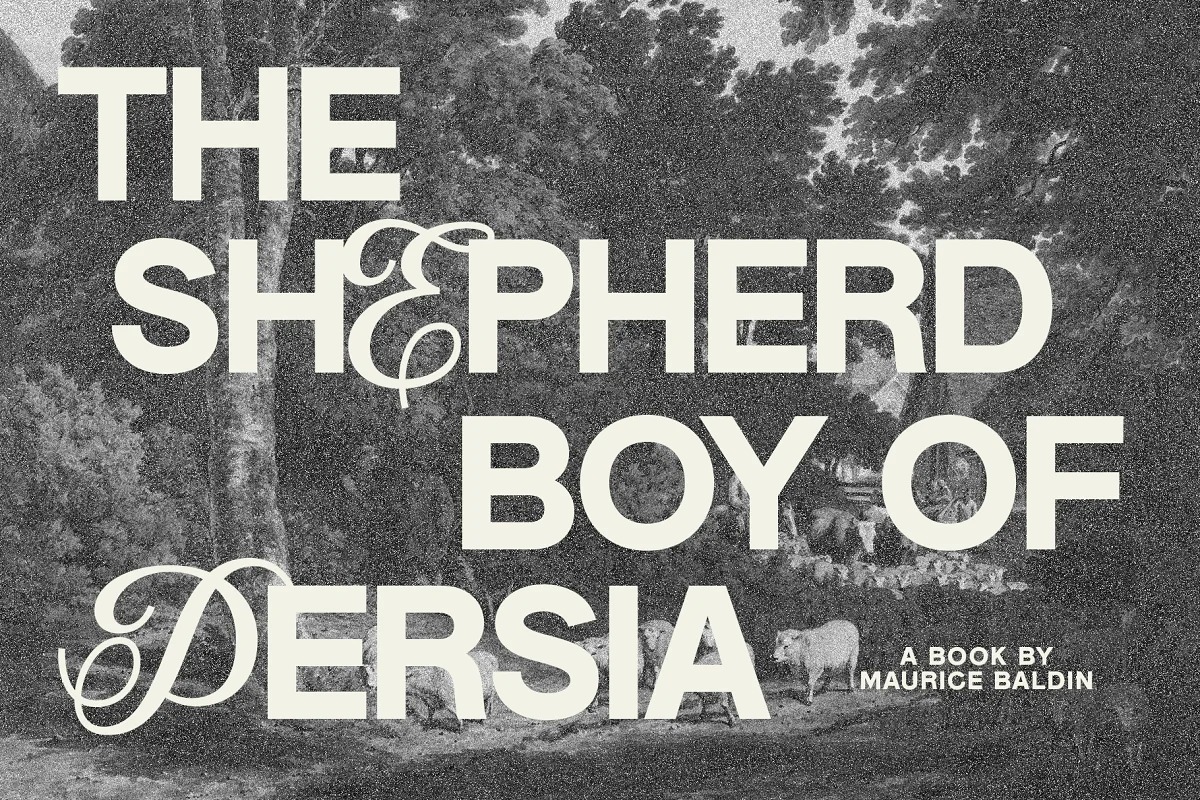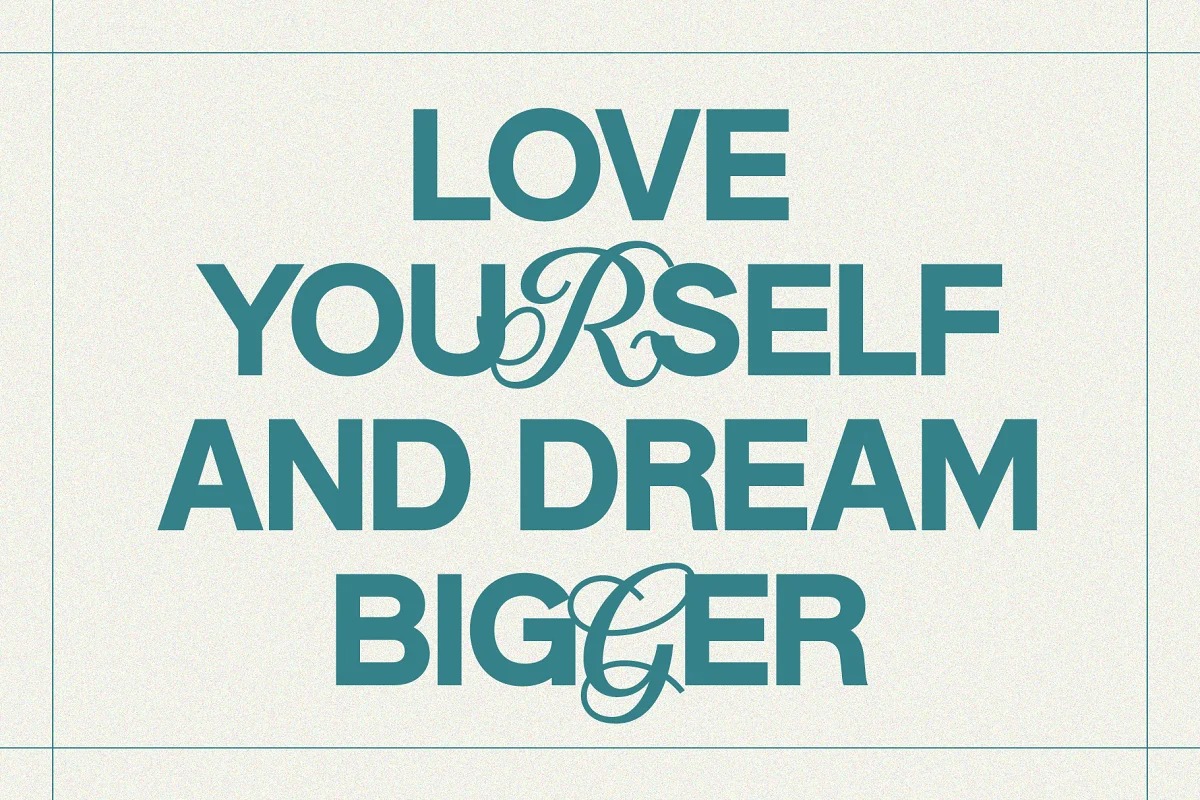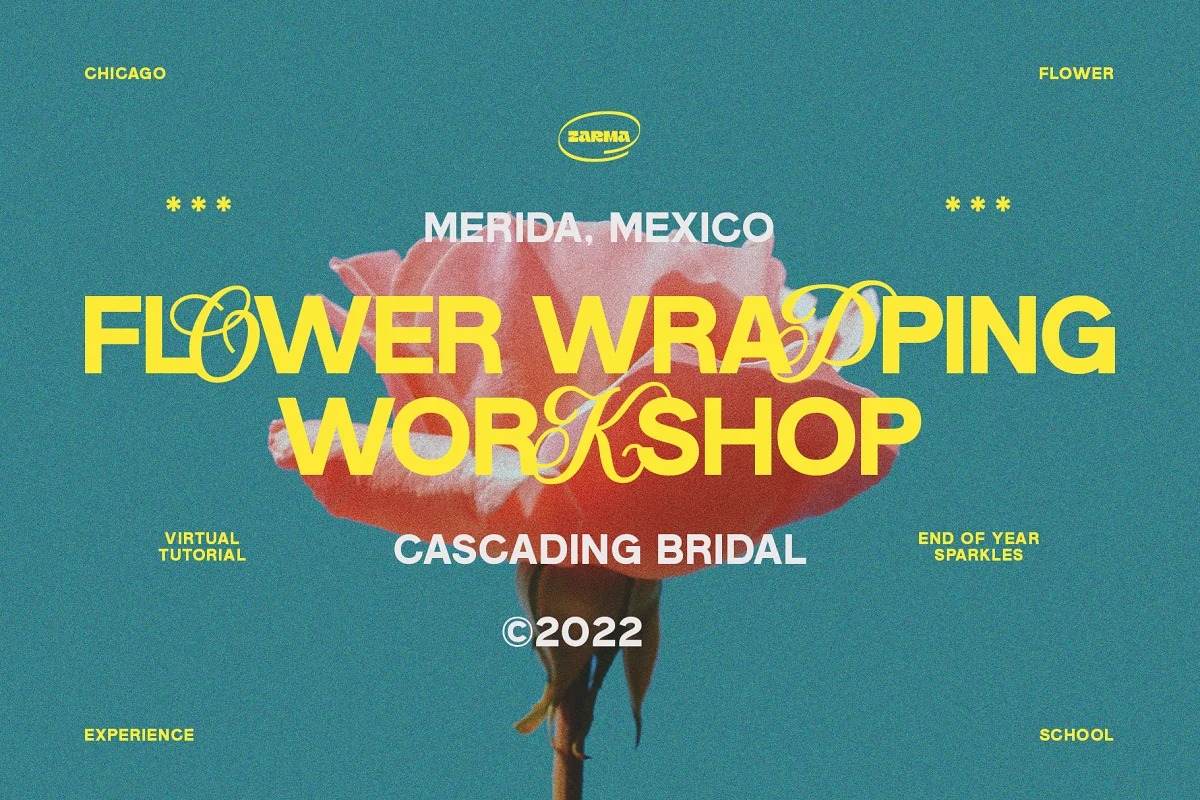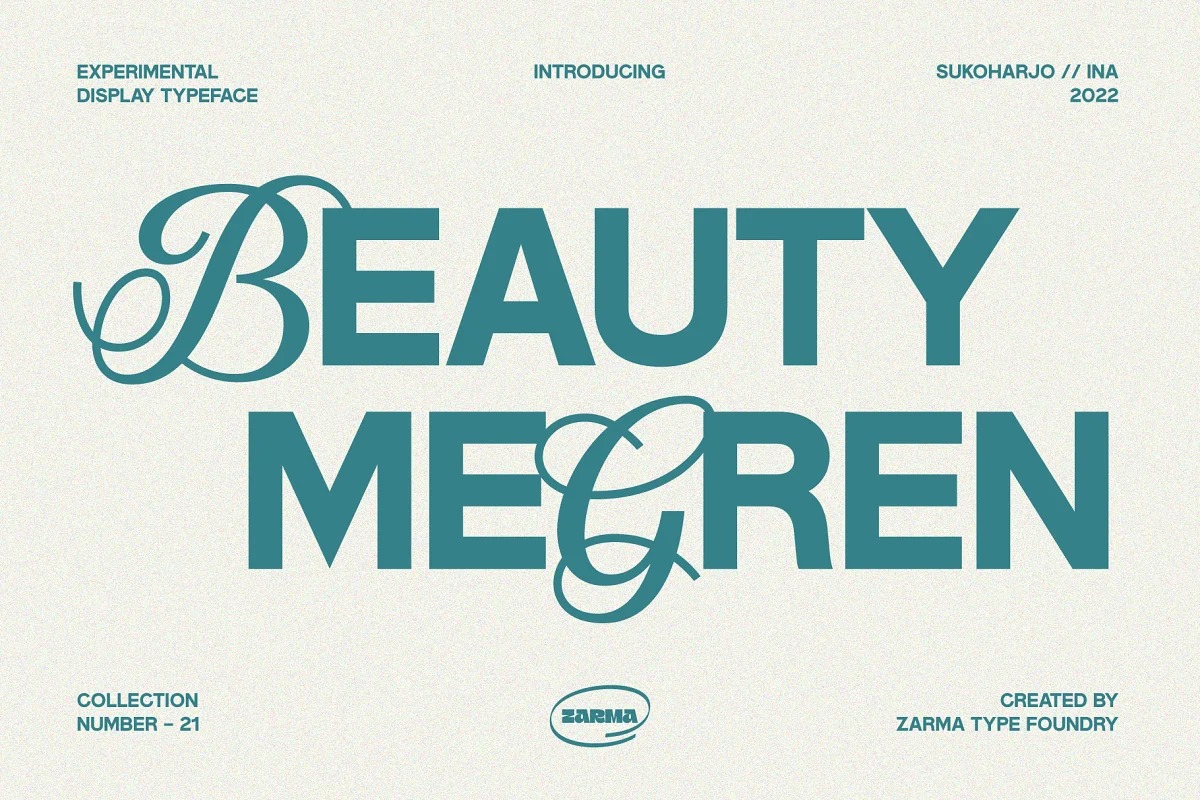
Megren Font
Megren Display Font is an experimental combination typeface. include 2 fonts that have a very different style and appearance, but make this font look unique. Consists of 1 font file with copperplate script typeface on the uppercase and sans serif on the lowercase. The combination of different typefaces looks modern and fashionable but also gives a nostalgic retro vibes at the same time.